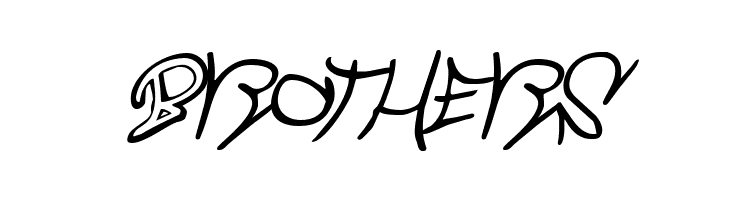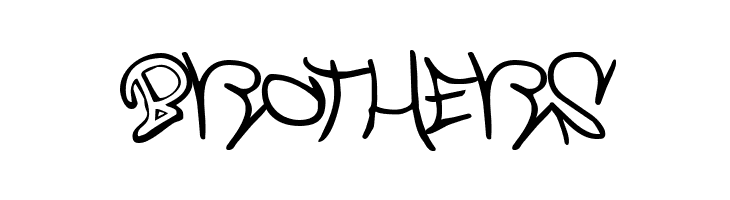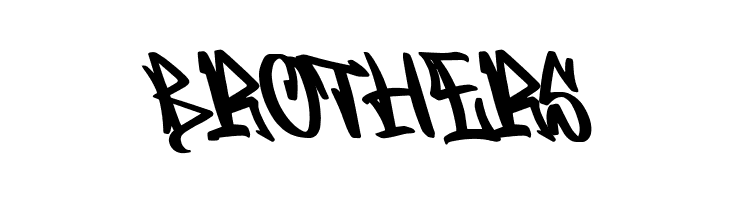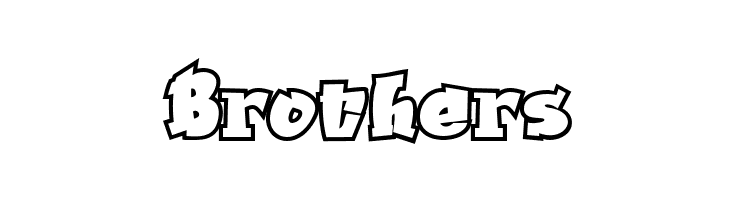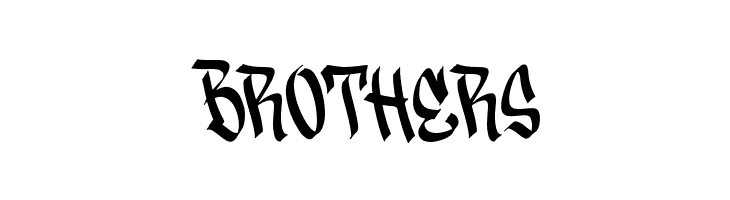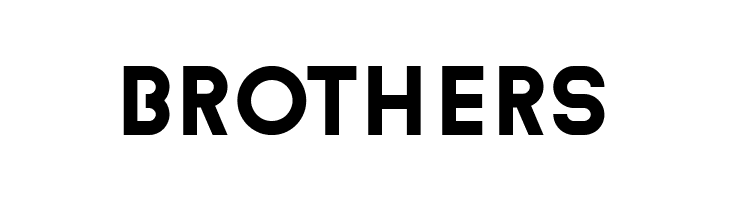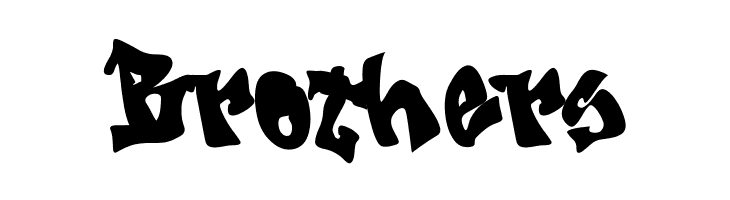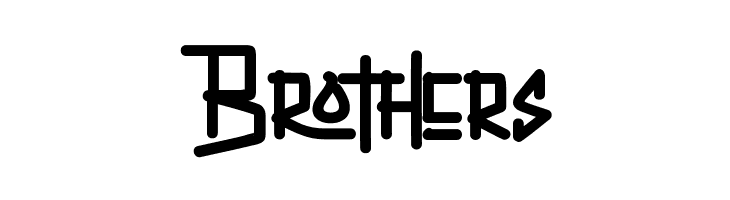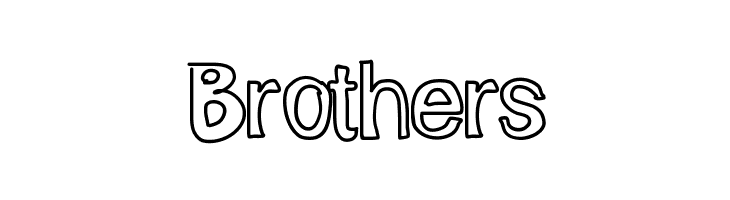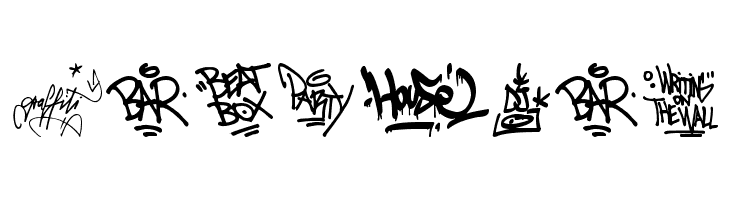
A dynamic brush script font with expressive, fluid strokes and a hand-painted texture.
A whimsical handwritten font with flowing, interconnected letterforms.
A bold, modern font with clean, geometric lines and balanced spacing.
A graffiti-inspired script font with bold, angular letters and a rebellious flair.
A graceful script font with flowing, interconnected cursive letters.
A geometric and angular font with a modern, edgy style.
A geometric and artistic font with sharp angles and modern elements.
A playful, graffiti-inspired outline font with a bold and artistic style.
A bold, graffiti-inspired font with rough, brush-like strokes.
A bold, graffiti-style font with sharp angles and thick strokes.
A bold, graffiti-inspired font with sharp, angular lines and dynamic curves.
A bold, graffiti-inspired font with angular, energetic characters.
A bold, graffiti-inspired font with dynamic, angular strokes and a rebellious flair.
A bold, graffiti-inspired font with a dynamic and urban style.
A bold graffiti-style font with dynamic, angular forms and thick strokes.
A bold, graffiti-inspired font with sharp angles and dynamic flow.
A dynamic and expressive graffiti-style font with exaggerated curves and sharp angles.
A bold, brush-style font with a graffiti-inspired, energetic look.
A bold, graffiti-style font with angular, dynamic letterforms and a three-dimensional effect.
A bold, graffiti-inspired font with angular, blocky letterforms and high contrast.
A bold, graffiti-inspired font with angular, dynamic letterforms.
An edgy, punk-inspired font with sharp angles and whimsical embellishments.
A bold, graffiti-inspired font with sharp angles and dynamic curves.
A bold, graffiti-inspired font with sharp, angular edges and dynamic styling.
A classic serif font with elegant strokes and medium contrast.
A playful, hand-drawn font with bold, rounded strokes and an informal style.
A bold, graffiti-inspired font with dynamic, irregular shapes.
A bold, graffiti-inspired font with thick outlines and dynamic shapes.
A modern, geometric font with rounded edges and a condensed style.
A bold, modern font with thick strokes and a strong visual impact.
A bold, modern font with a geometric and condensed style.
A bold, modern font with rounded edges and a strong visual impact.
A modern, geometric sans-serif font with rounded edges and a condensed style.